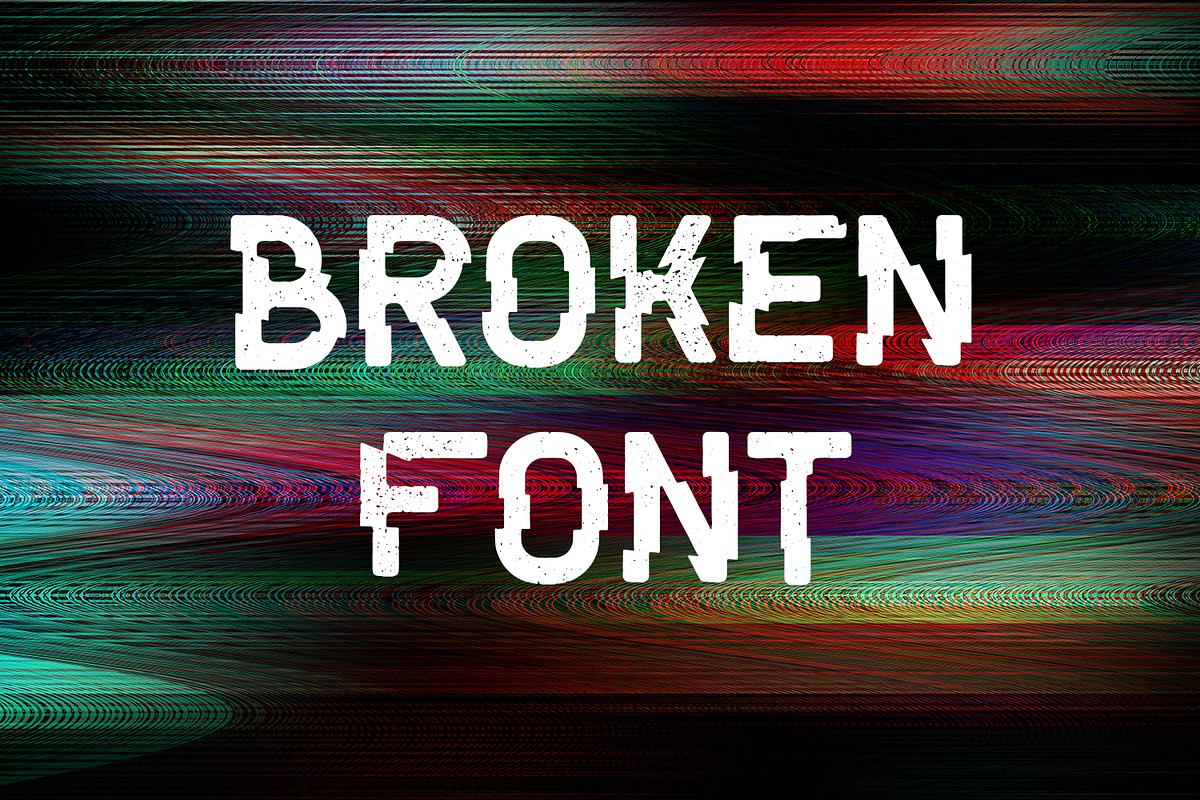
Broken Font Free Download is a bold and edgy typeface that brings a raw, distressed aesthetic to modern design projects. Please note: you must purchase this font for commercial use, but you can test it through a free download. With its fragmented letterforms and grunge-inspired texture, Broken Font is perfect for album covers, streetwear branding, posters, gaming graphics, and edgy editorial layouts.
Designed to break the mold, this font adds intensity and emotion to any composition. Whether you're creating a rebellious logo or a gritty digital graphic, Broken Font Free Download delivers an impactful and unforgettable look. It works seamlessly with design software like Adobe Photoshop, Illustrator, and Canva, making it a versatile tool for creatives who want to make a statement. Download it today for personal use and let your designs embrace the beauty of imperfection and boldness.